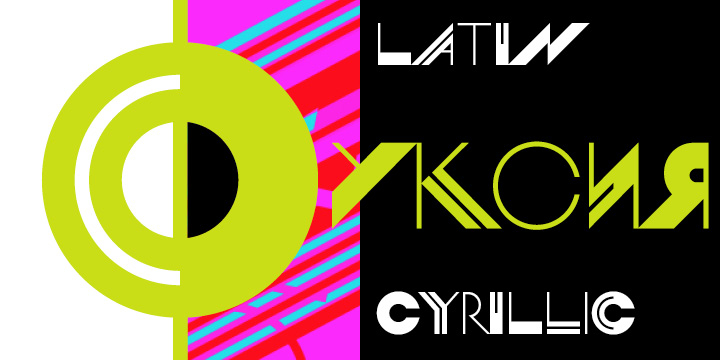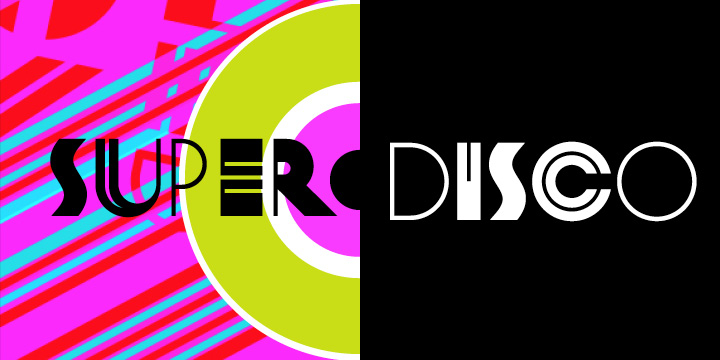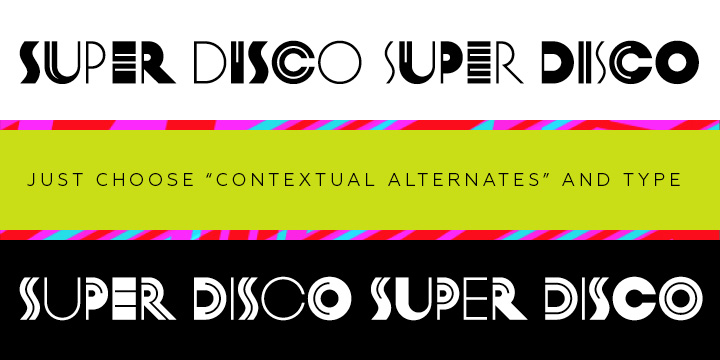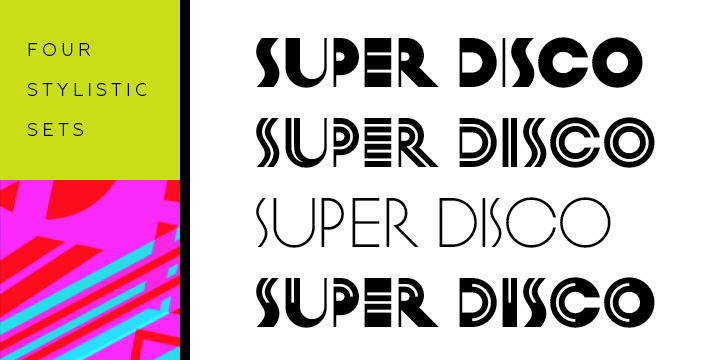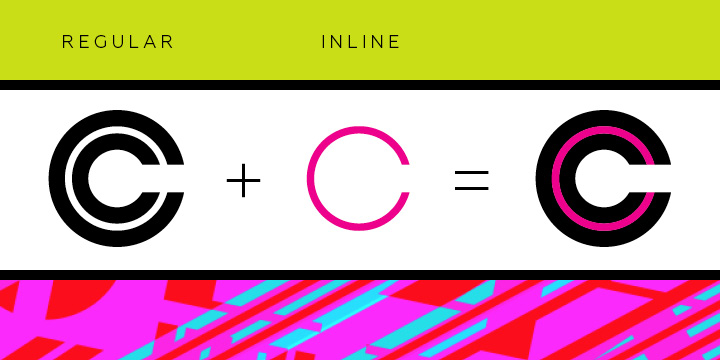
Super Disco is a novelty, retro and art deco font published by Brownfox.
Super Disco is an exciting new family of display caps, inspired by the swinging Art Deco esthetic. Open Type Contextual Alternates feature is ingeniously utilized to allow the user to mix and match all four styles at once. Inline weight can be used in combination with Regular weight to create a chromatic type effect easily.